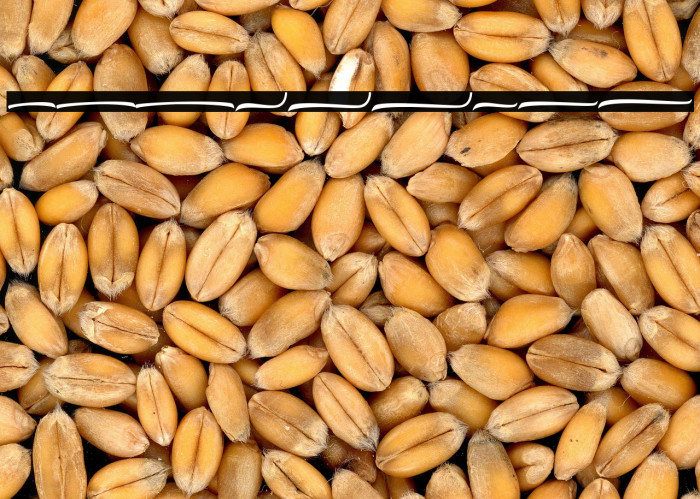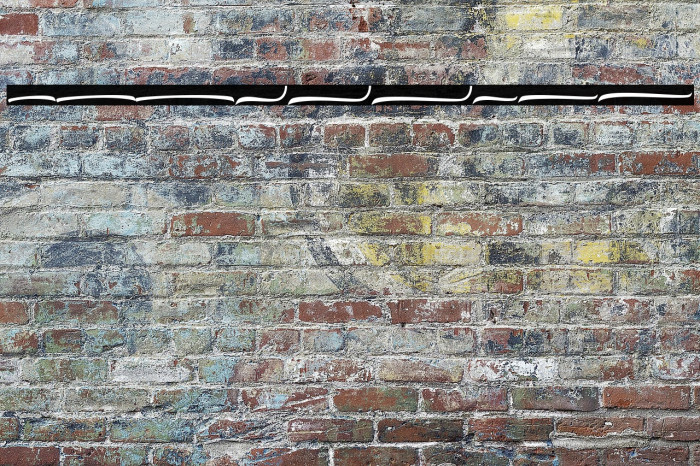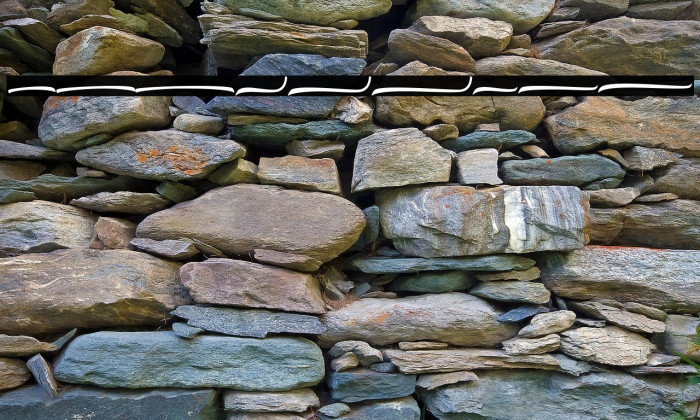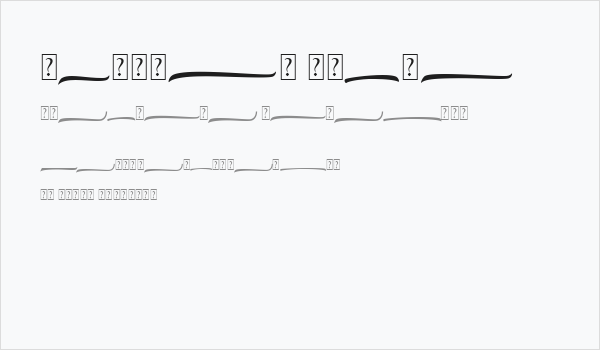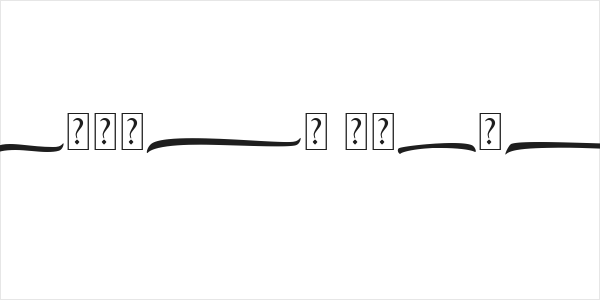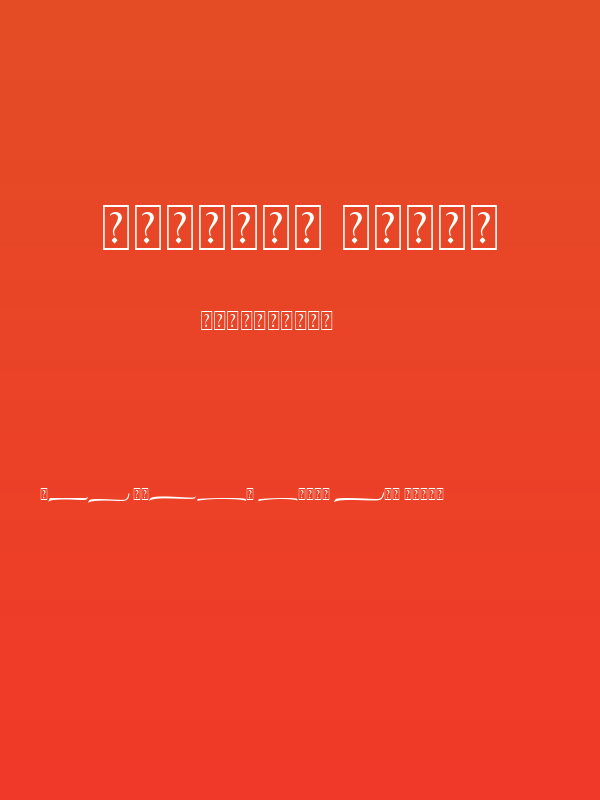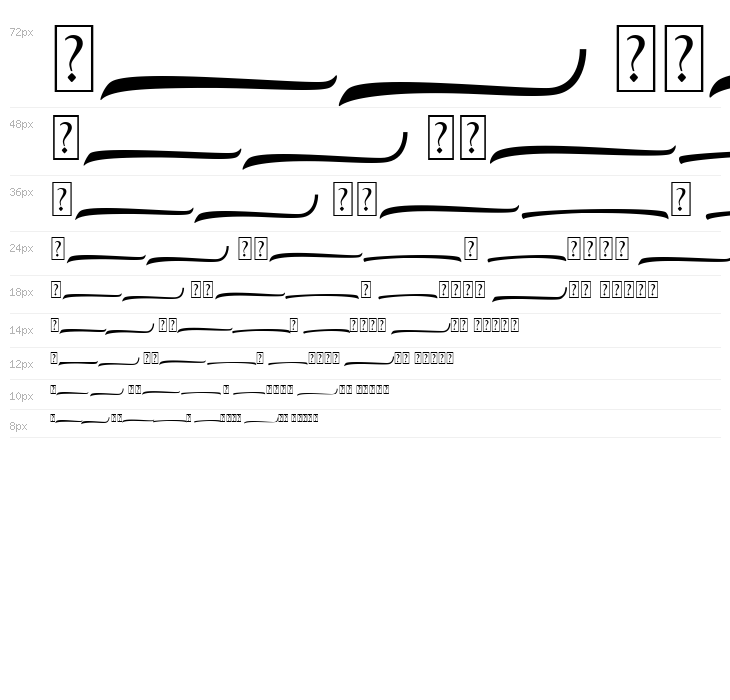
Agustin Swash Font
Agustin Swash Description
This font features a unique and decorative style, characterized by elegant swashes and flourishes that add a touch of sophistication and flair. The design is highly stylized, with each character exhibiting a distinct personality, making it ideal for creative and artistic projects. The font's intricate details and flowing lines create a sense of movement and grace, perfect for capturing attention and adding a dramatic effect to any design. Its ornate appearance makes it suitable for use in invitations, branding, and other projects where a touch of elegance is desired.